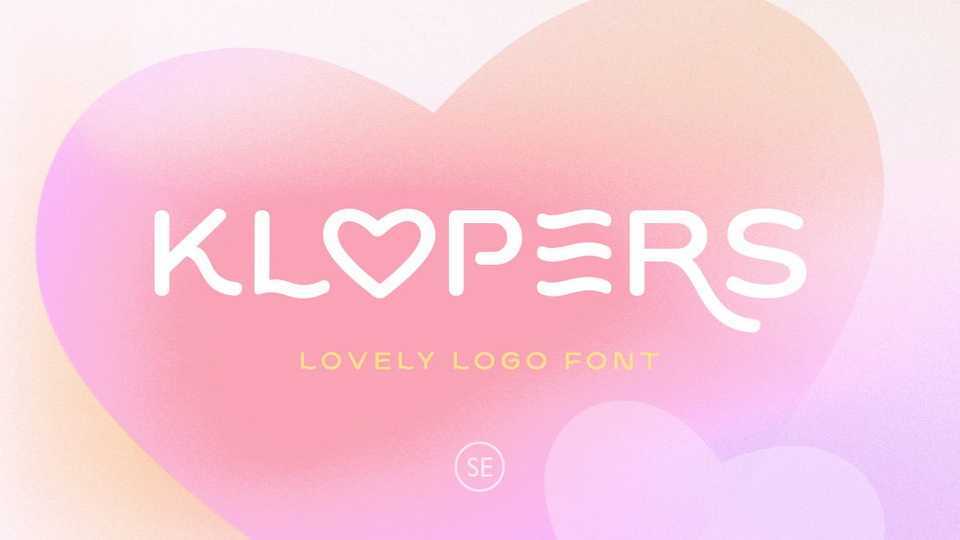
Download Klopers font, a lovely and minimalist logo typeface with unique shapes that will make your logo and design looks more minimal yet modern. With the unique lowercase characters, Klopers font can make your logo even more stunning.